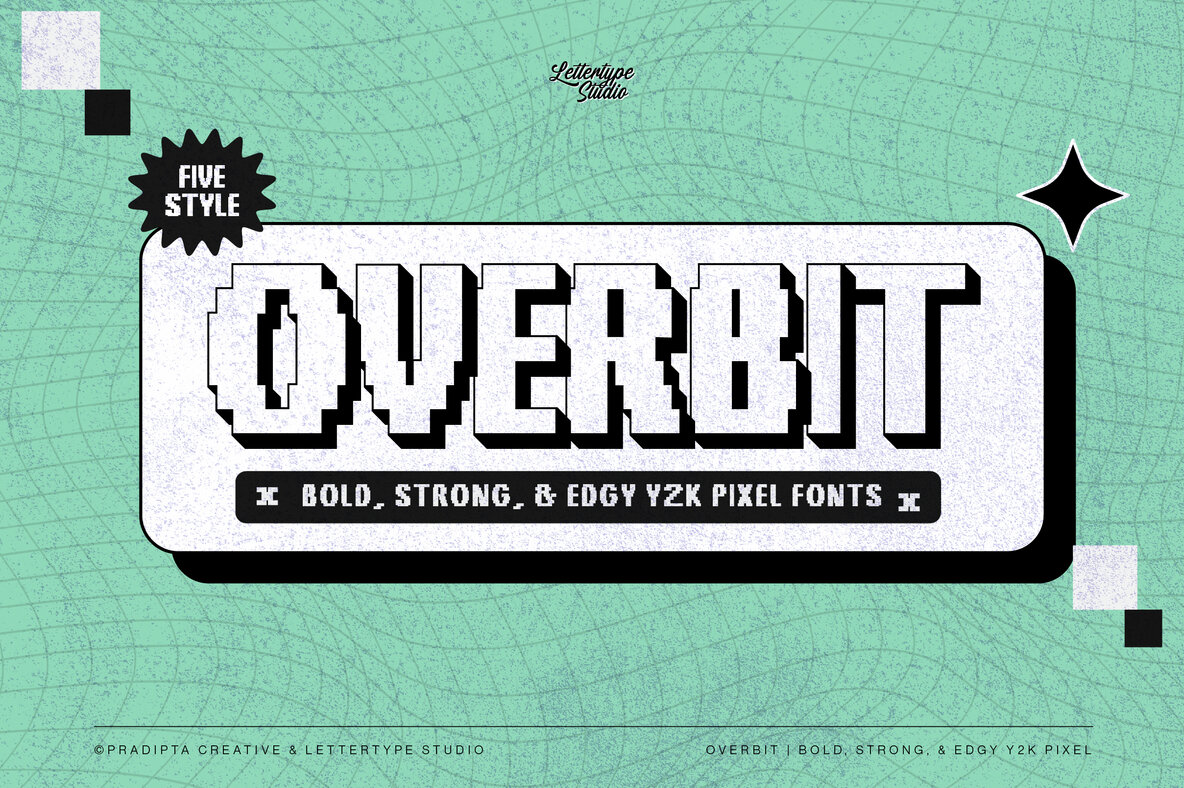
Overbit Font
expand_font Overbit Font Embrace retro charm with Overbit: a dynamic Y2K font for playful projects. Ideal for gaming interfaces, logos, and more. Pixel,Y2k,Edgy,Retro,Nostalgic,Bold Design,Creative,Strong,80as,8 Bit,Arcade,Bitmap,Blocky,Low Res,Gaming,Digital,Pixelart,Pixelated,Video Game,Techno,Video Game Explore Exceptional Fonts for Digital and Traditional Media Fontpath offers a large variety of fonts for every designer, all at affordable prices and in multiple formats. Browse our best in class fonts today for all your creative needs, you can find everything you need right here at our site! Fonts,sans,sans serif,retro,script,decorative,title,FontPath 20140312040223 Fontpath offers 200,000+ of the most professional fonts found online, start downloading today! Real-Time Font Discovery at Fontpath